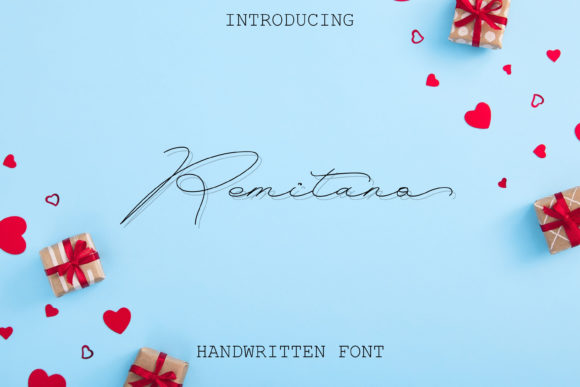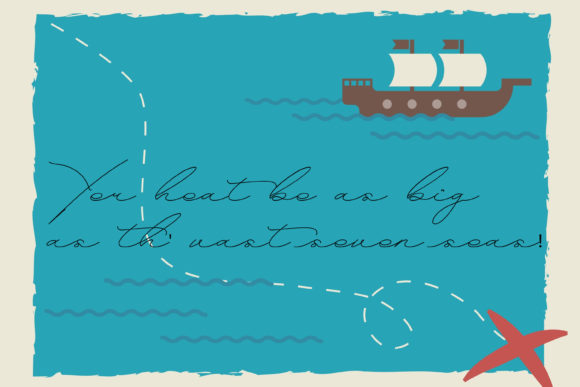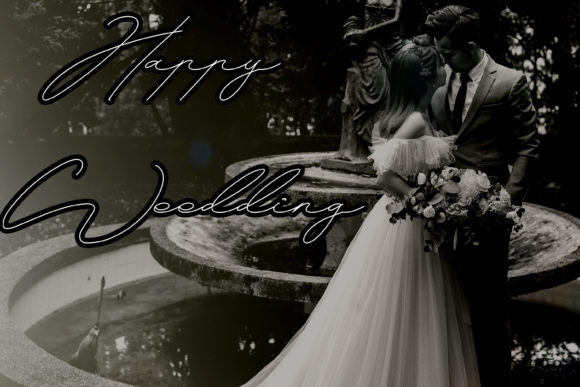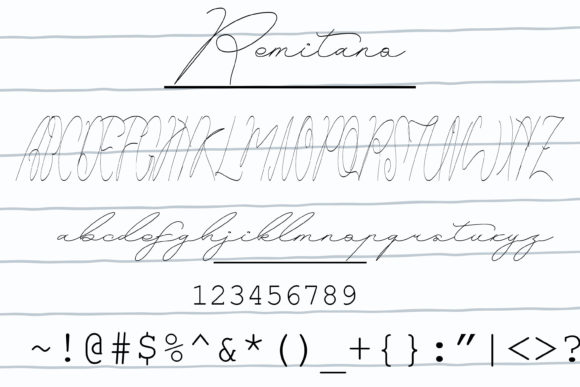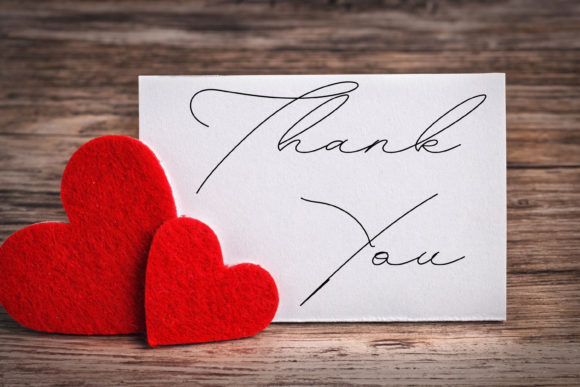
Remitano Font
About Remitano Font
Introducing “Remitano,” a lovely and timeless script font meticulously crafted to enhance your logos, branding, and quotes with its unique and beautiful touch. With its elegant strokes and timeless appeal, Remitano adds a touch of sophistication to any design project.
Every letter in Remitano is carefully designed to exude charm and personality, bringing your designs to life with its distinct and captivating style. Whether you’re creating a logo, branding materials, or inspirational quotes, this font ensures that each letter contributes to the overall beauty and impact of your design.
The PUA encoding of Remitano allows you to access all of the glyphs and swashes with ease, giving you the freedom to customize your designs and add decorative elements as desired. Whether you’re adding flourishes or unique letter combinations, Remitano offers endless possibilities for creative expression.
Experience the timeless elegance of Remitano and watch as it elevates your designs to new heights. Whether you’re a professional designer or a passionate enthusiast, this font invites you to explore new possibilities and express yourself with confidence and style.
Unlock the full potential of your designs with Remitano and let its lovely script font breathe life into your logos, branding, and quotes. With its unique charm and PUA encoding for easy access to glyphs and swashes, Remitano is sure to become a beloved addition to your design toolkit, inspiring creativity and elegance with every use.